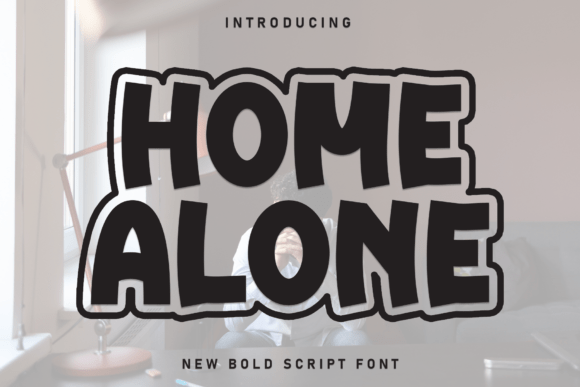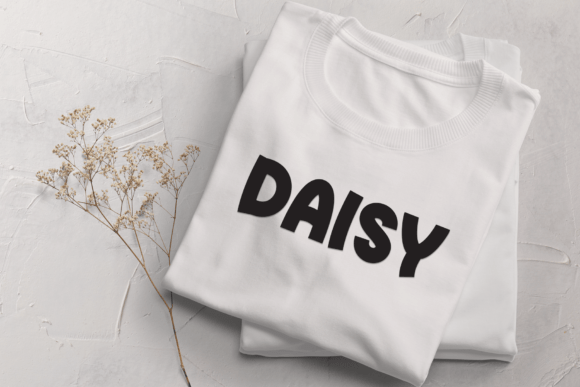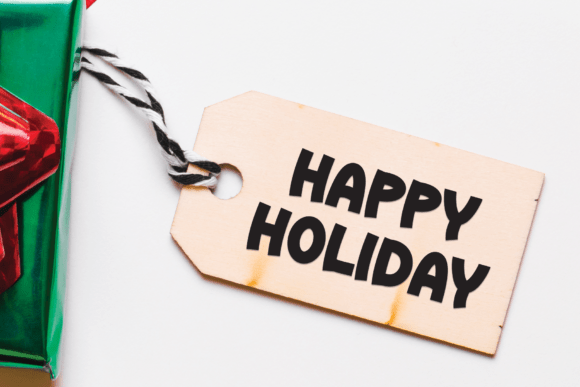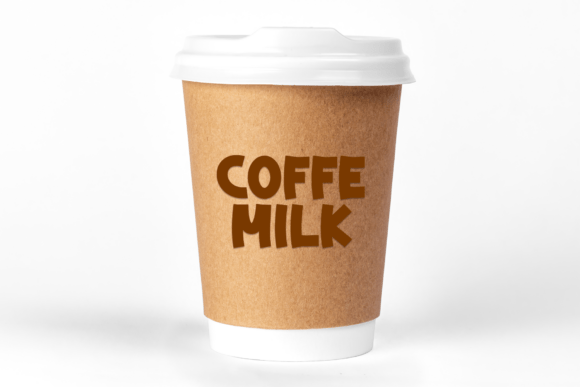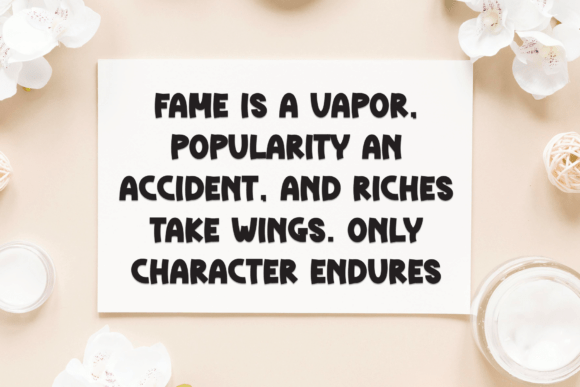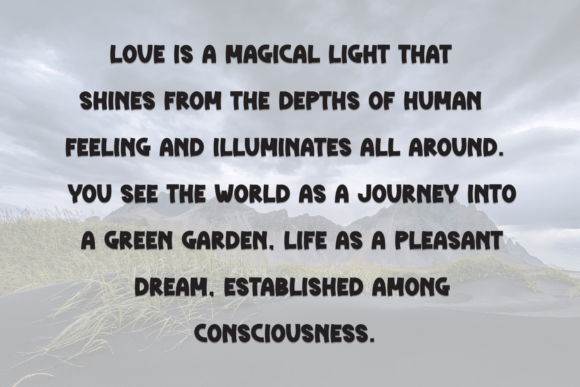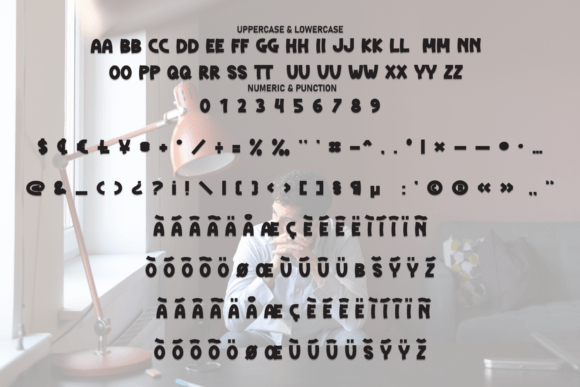
Unlocking the Whimsy of Home Alone Font
Have you ever been in the midst of a creative project, pouring your heart and soul into every detail, only to feel like something’s missing? That’s when the perfect font can make all the difference. Imagine adding a dash of magic to your wedding invitations, greeting cards, or any design that needs a touch of warmth and personality.
Enter Home Alone Font, a captivating handwritten display font that embodies the perfect blend of whimsy and charm. This enchanting font is designed to add a lively spirit to your creations, making them truly special and memorable. Whether you’re a seasoned designer or just starting out, Home Alone Font is a valuable addition to your toolkit, guaranteed to bring a smile to your clients’ faces and a touch of joy to their hearts.
Key Features of “Home Alone Font”
- Font Style: Script, Handwritten Font
- Unique Characteristics: Distressed, handwritten, and childlike feel, reminiscent of Kevin McCallister’s (Macaulay Culkin) creative and resourceful personality in the movie
Home Alone Font Review
I recently had the chance to work with the “Home Alone Font” and I must say it’s a nostalgic gem. ✨ The font’s classic feel instantly transports me back to the 90s, and I love how it captures the essence of the iconic movie. The font’s rounded edges and playful flourishes make it perfect for titles and headings.
One of the standout features of this font is its versatility. ✨ It can be used for both digital and print designs, and it works beautifully for a wide range of projects, from invitations to posters. The font is also highly customizable, allowing designers to adjust the size, color, and style to suit their needs.
- ⚠️ The font may not be suitable for professional or formal projects due to its playful and nostalgic nature.
- ⚠️ Some characters may not be fully supported in certain operating systems or software, which can lead to rendering issues.
Overall, I’m impressed with the “Home Alone Font”. While it may have some limitations, its classic charm and versatility make it a great addition to any designer’s toolkit. If you’re looking for a font that’s sure to bring a smile to your audience’s faces, this is definitely worth checking out.
The Home Alone Font is ideal for use in holiday-themed designs, such as Christmas cards, gift tags, and social media graphics. To get the most out of it, try combining it with other festive fonts and graphics for a fun and playful look. You can also use it to add a touch of nostalgia to your designs, evoking memories of the classic holiday movie.